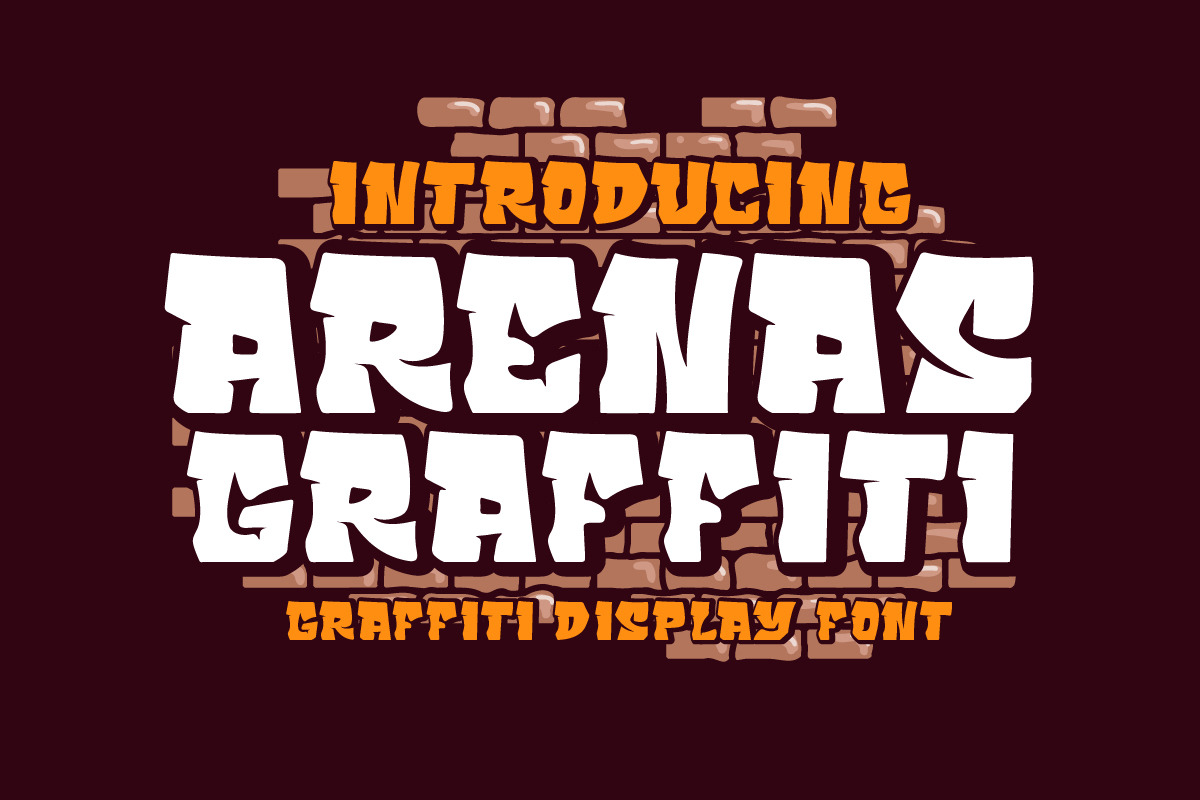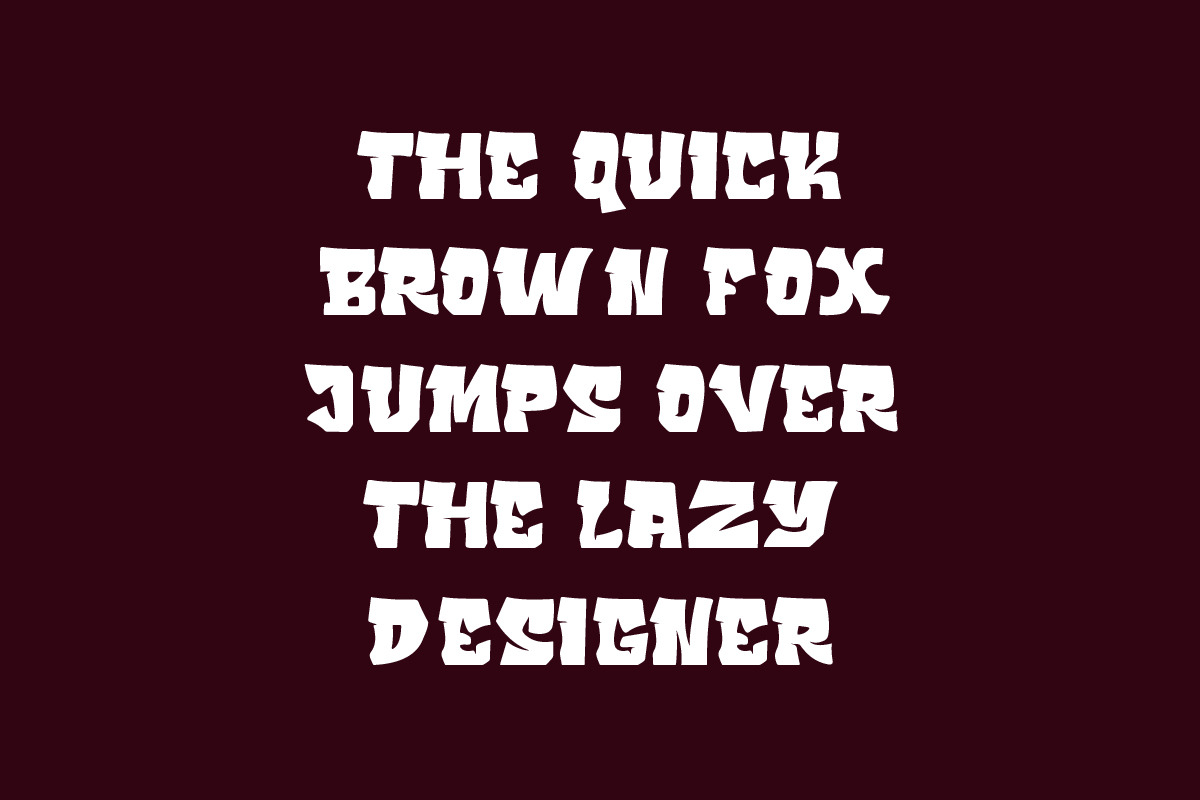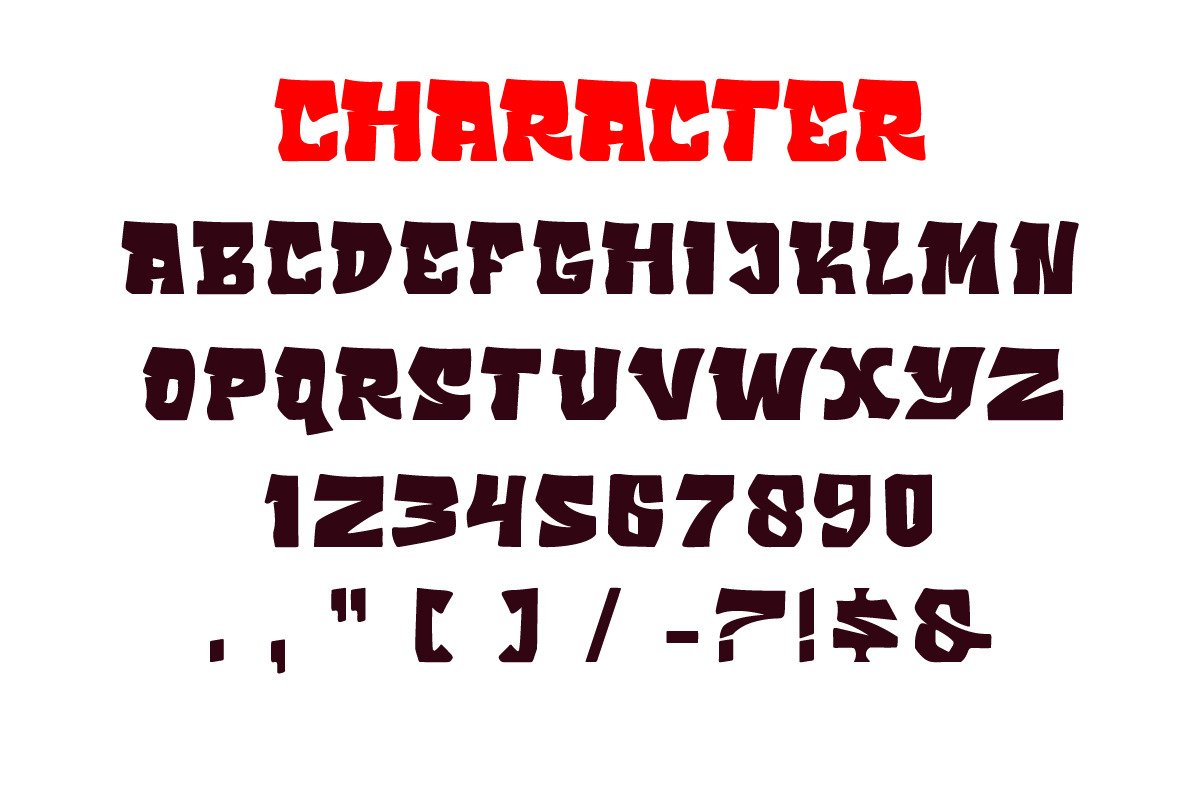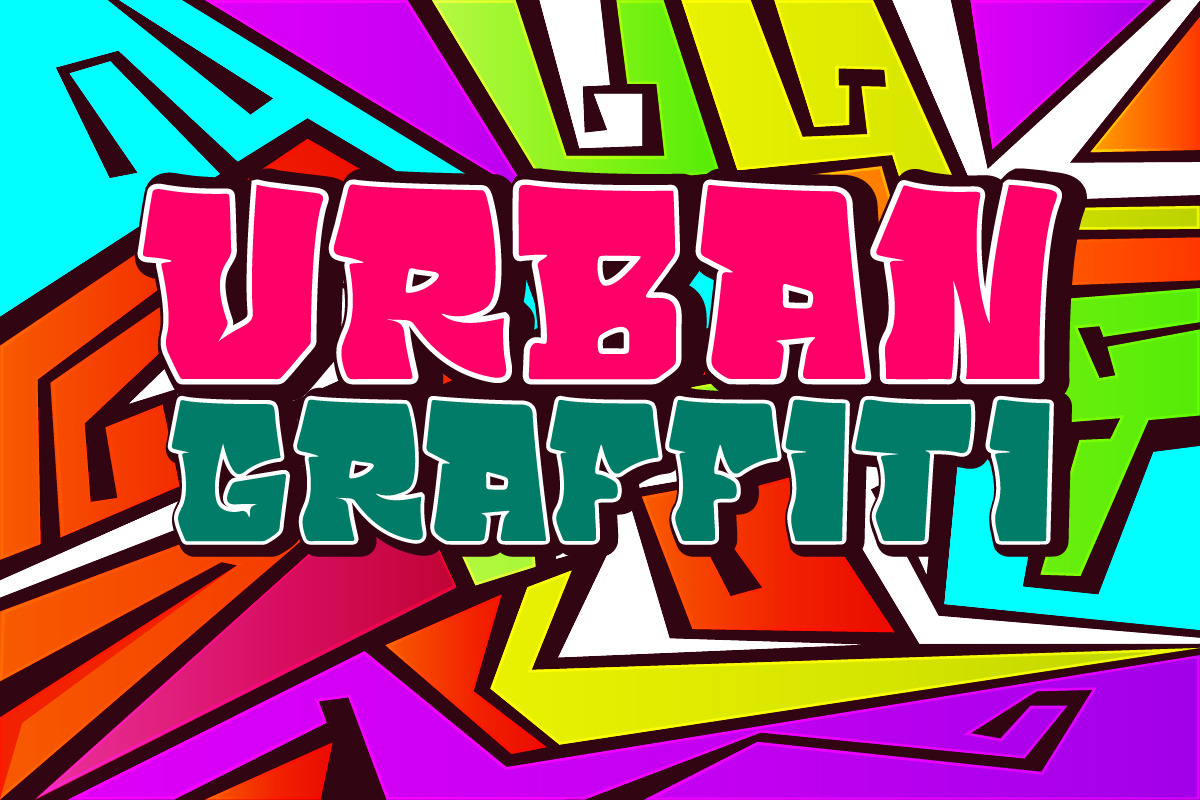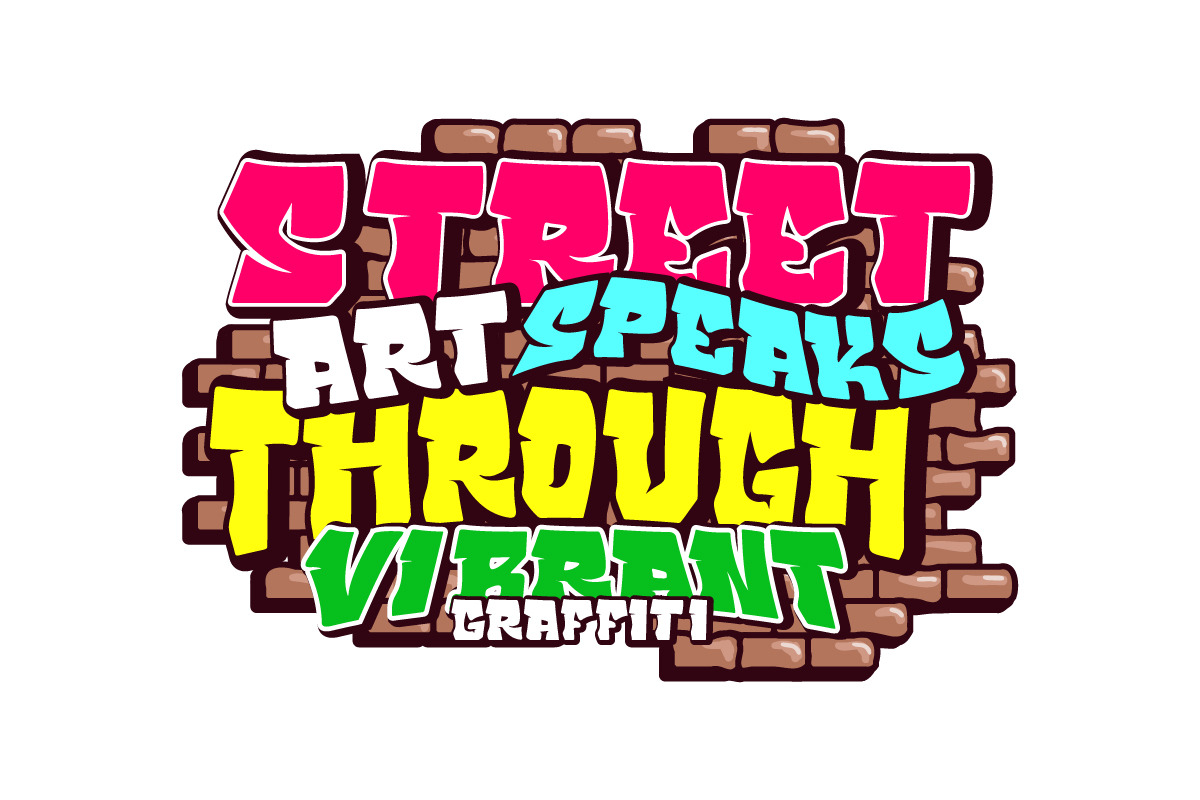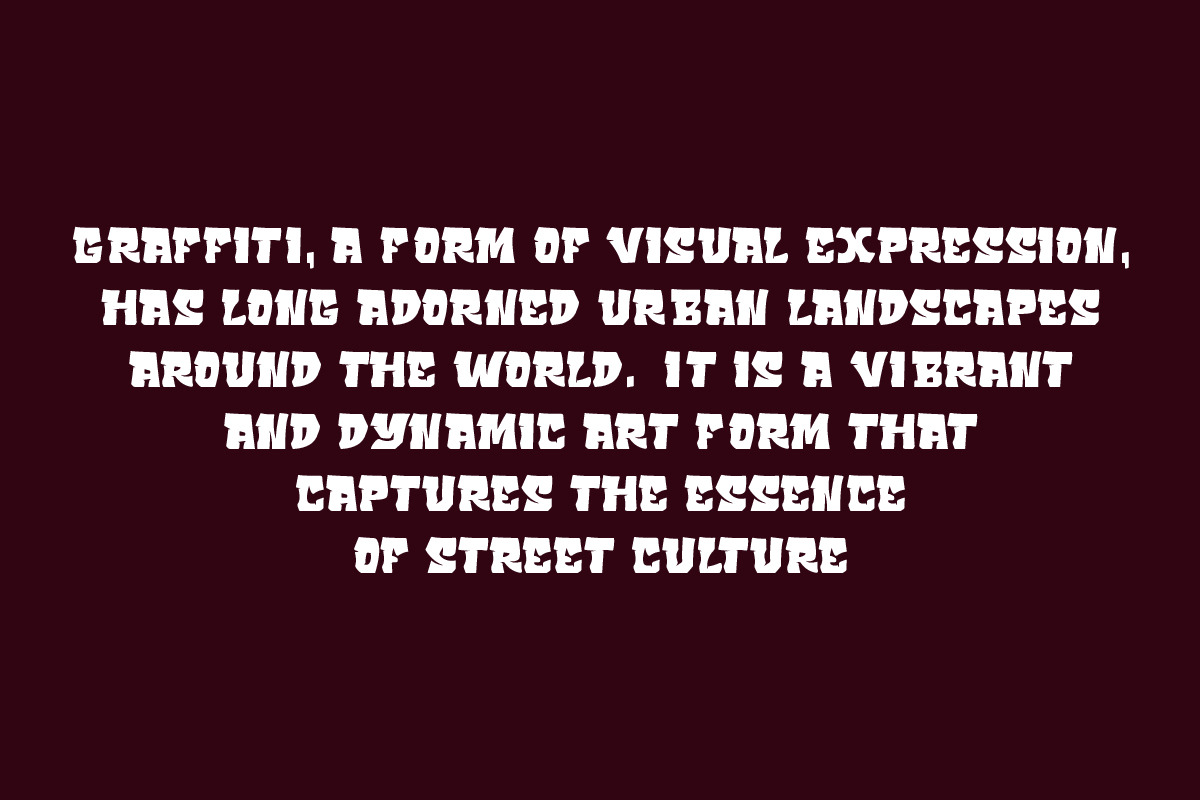
Arenas Graffiti Display Font
Arenas Graffiti Display Font is our new item suitable for your Posters.
Great for Logo, Poster, Sticker, Jerseys, Invitation Card, Brochure, etc.